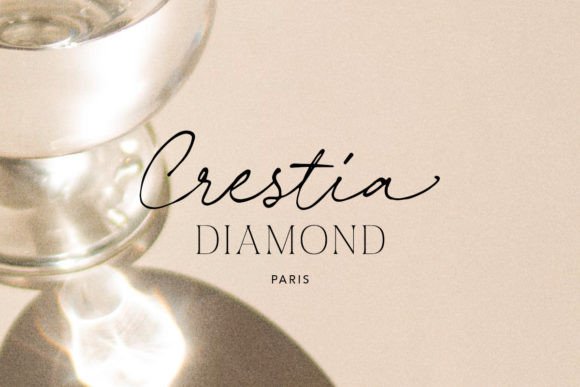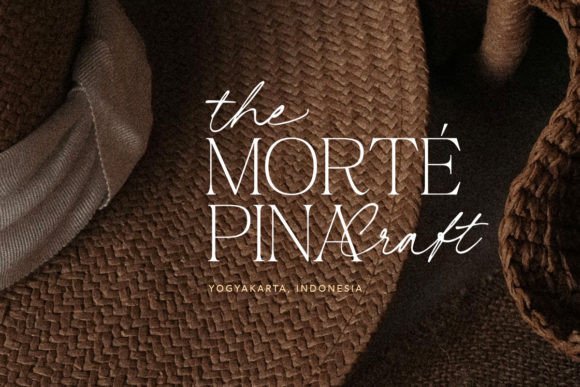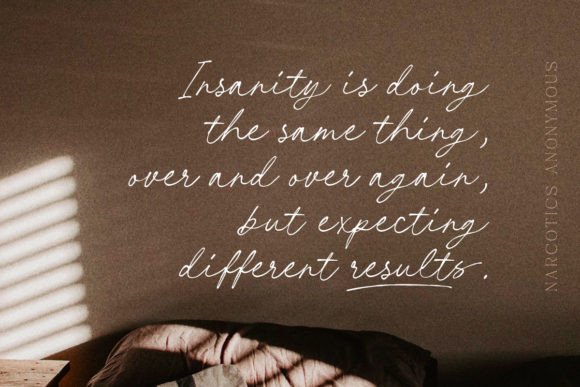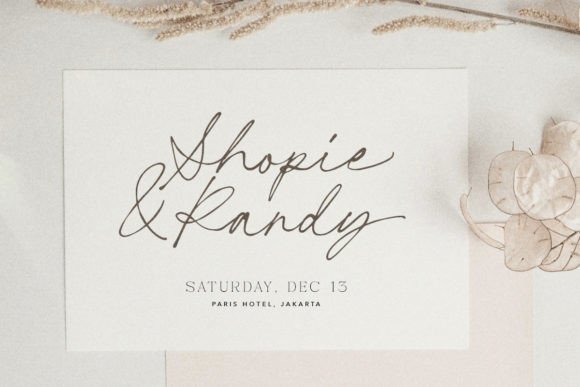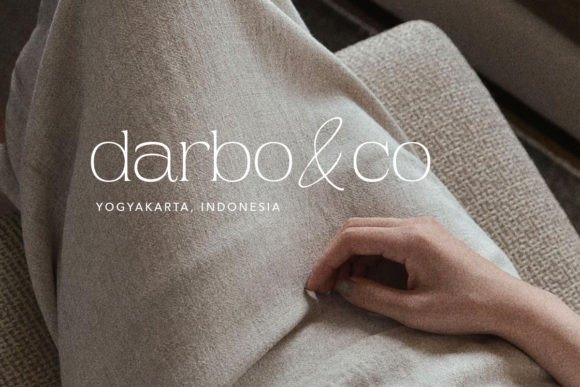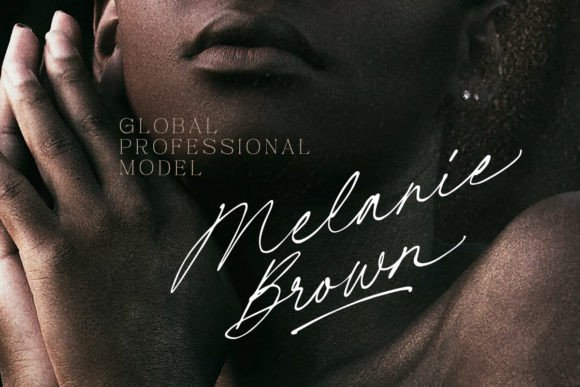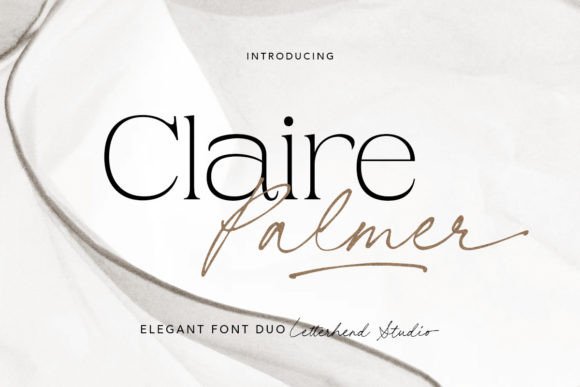
Introducing the Claire Palmer Font Duo: Elevate Your Designs with Elegance and Sophistication
In the world of typography, finding the perfect font combination can be a game-changer for designers and crafters. The Claire Palmer font duo is a breathtaking pairing of a script and serif font that can instantly elevate your projects with a modern and sophisticated look. Whether you’re working on a logo, formal documents, or advertising materials, this font duo is sure to impress.
The Script Font: Flowing Strokes and Graceful Curves
The script font in the Claire Palmer duo is a masterclass in elegance. Its flowing strokes and graceful curves evoke a sense of luxury and refinement, making it perfect for projects that require a touch of sophistication. From wedding invitations to high-end branding, this script font is sure to make a lasting impression.
Claire Palmer Script Font
The Serif Font: Clean and Traditional
The serif font in the Claire Palmer duo is a beautiful example of clean and traditional typography. Its classic design makes it perfect for projects that require a sense of stability and professionalism. Whether you’re working on a formal document, a brochure, or an advertisement, this serif font is sure to deliver.
Claire Palmer Serif Font
The Power of Combination: Modern and Sophisticated
When used together, the Claire Palmer font duo creates a modern and sophisticated look that’s perfect for a wide range of projects. The contrast between the flowing script font and the clean serif font creates a visually appealing combination that’s sure to grab attention. Whether you’re working on a logo, a website, or a marketing campaign, this font duo is sure to elevate your design.
Claire Palmer Font Duo
One of the best things about the Claire Palmer font duo is that it’s PUA encoded, making it easy to access all the delightful glyphs and swashes. With PUA encoding, you can effortlessly add decorative touches to your designs, making them even more special and unique.
The Claire Palmer font duo is perfect for designers and crafters who want to add a touch of elegance and sophistication to their projects. Whether you’re working on a personal project or a client’s brief, this font duo is sure to deliver. With its modern and sophisticated look, you can use it for:
• Logo design
• Formal documents
• Advertising materials
• Wedding invitations
• Branding and packaging
• And more!